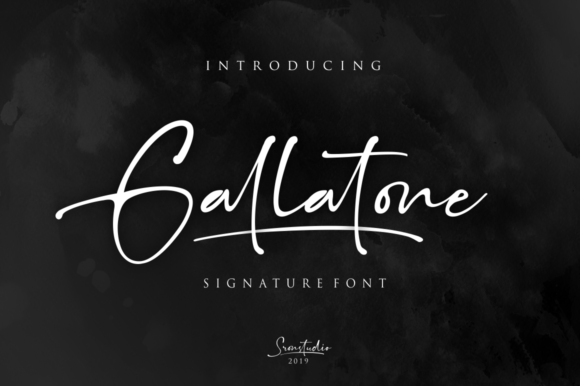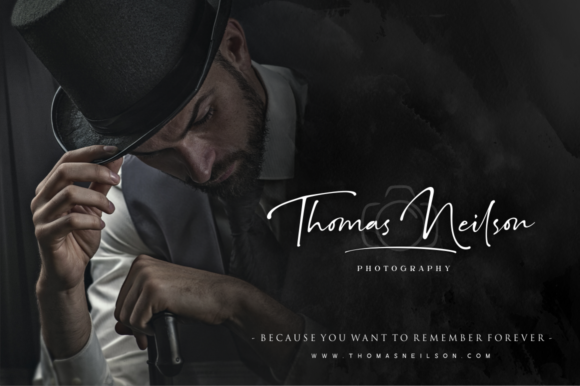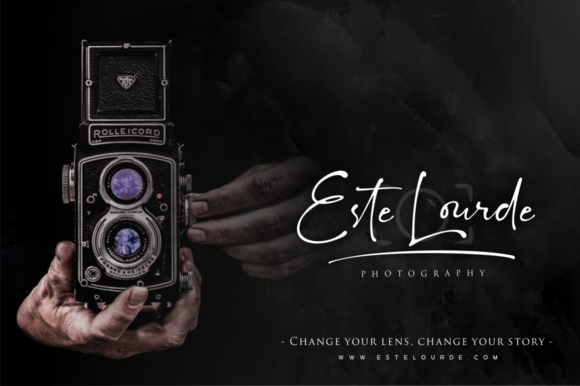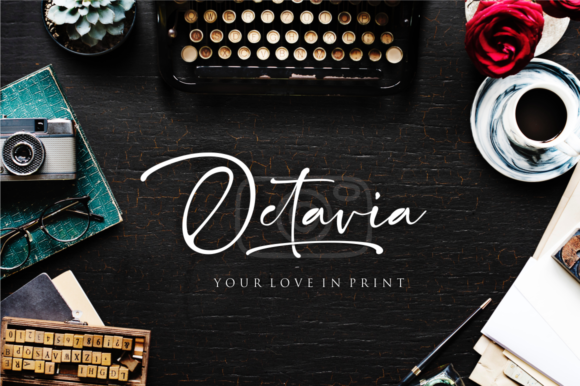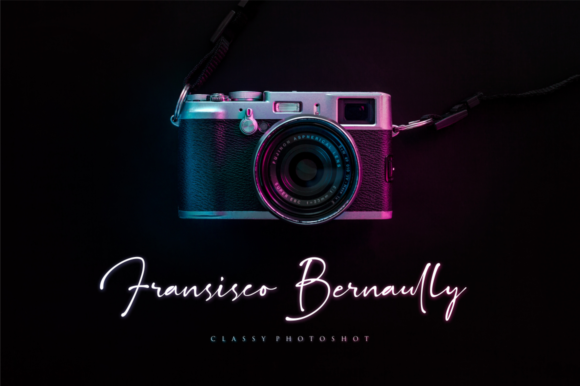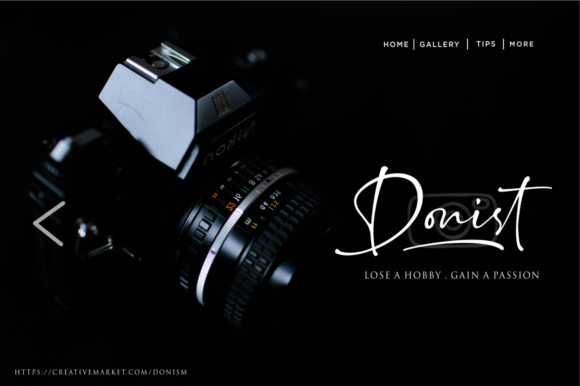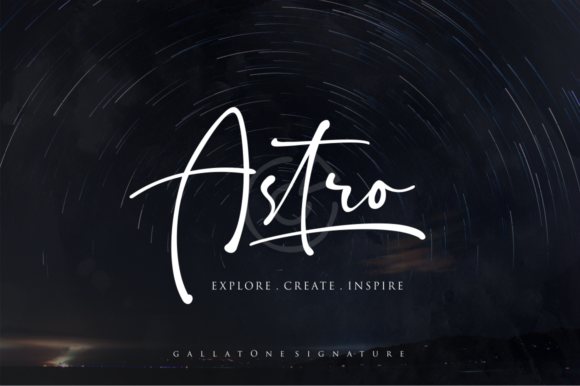
The Perfect Font for Your Signature Style
Have you ever stared at a blank page, searching for the perfect font to match your brand’s personality? The struggle is real, especially when you’re trying to convey a unique tone and aesthetic. That’s why we’re excited to introduce you to the Gallatone Font, a classic signature font that’s sure to elevate your designs.
The Gallatone Font is more than just a font – it’s a complete design package that comes with bonus swashes and photography clipart. This means you can create stunning visuals for your personal branding and logos, invitations, stationery, and more. Whether you’re a professional designer or a creative entrepreneur, the Gallatone Font is an invaluable asset that will help you stand out in a crowded market.
With its versatility and stylish flair, the Gallatone Font is a must-have for any designer looking to add a touch of sophistication to their work.
Gallatone Font Key Features
- Unique Characteristics: The Gallatone Font features a unique blend of elegance and sophistication, with a subtle flair of vintage charm, making it an excellent choice for designs that require a touch of sophistication.
- Font Style: The Gallatone Font is available in both regular and italic styles, providing designers with flexibility and options for creating visually appealing text.
Gallatone Font Review
Gallatone Font is a unique and elegant script font that I’ve had the pleasure of working with. Here are my honest thoughts:
- Beautifully crafted letterforms that exude sophistication and luxury
- Excellent legibility, making it perfect for both digital and print applications
- Highly customizable, with a range of weights and styles to choose from
- Looks great in both uppercase and lowercase formats
- May be too ornate for certain design projects, requiring a more minimalist approach
- Lack of OpenType features and advanced typographic capabilities
- Not ideal for small text sizes, where the font may become too busy and overwhelming
Overall, I think Gallatone Font is a great choice for designers looking to add a touch of elegance and sophistication to their projects. While it may have some limitations, its beautiful letterforms and excellent legibility make it a solid choice for a wide range of applications.
Gallatone Font: A Practical Application Guide
Tips for using Gallatone in Canva: Use the font for headings and titles to add a touch of elegance to your designs.
Tips for using Gallatone in Photoshop and Illustrator: Use the font for custom typography and creative layouts.
Tips for using Gallatone in PowerPoint and Word: Use the font for headings and titles to add a touch of sophistication to your presentations and documents.
The Gallatone font is ideal for:
- Brand identity and logos
- Book covers and publishing materials
- Wedding and event planning materials
Alternatives to Gallatone Font
Great Vibes Font is a beautiful, elegant script font that is perfect for creating a sophisticated and luxurious feel. It’s ideal for use in high-end branding, invitations, and wedding designs. Great Vibes Font is similar to Gallatone Font in its flowing and cursive nature, but it has a more refined and polished look.
Pacifico Font is a beautiful, modern script font that is perfect for creating a relaxed and casual feel. It’s ideal for use in beach-inspired designs, travel brochures, and outdoor-related branding. Pacifico Font is similar to Gallatone Font in its cursive nature, but it has a more laid-back and effortless look.
Alex Brush Font is a elegant, handwritten font that is perfect for creating a personal and emotional feel. It’s ideal for use in wedding invitations, birth announcements, and other special occasion designs. Alex Brush Font is similar to Gallatone Font in its flowing and cursive nature, but it has a more delicate and whimsical look.